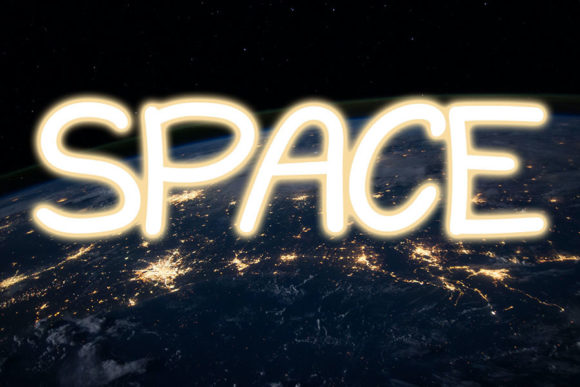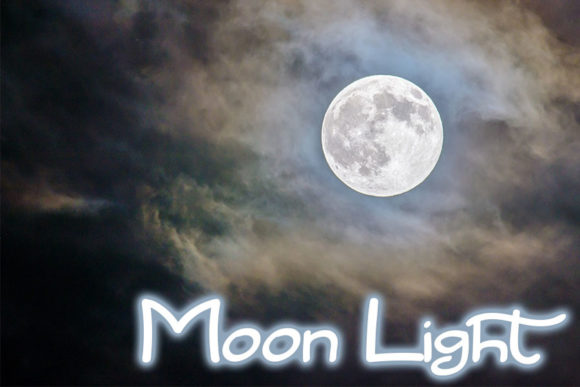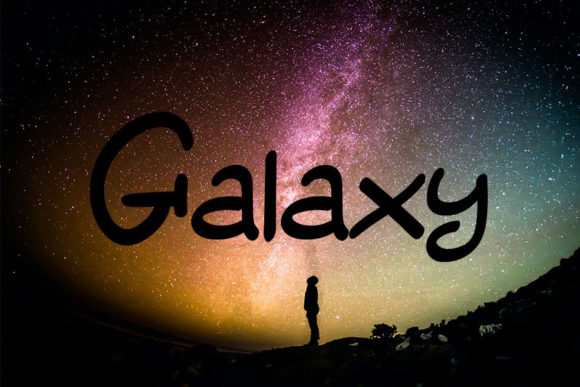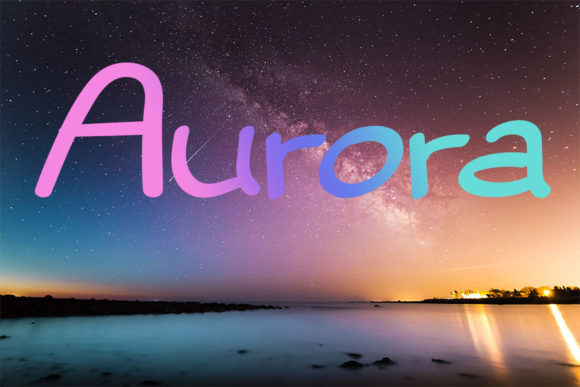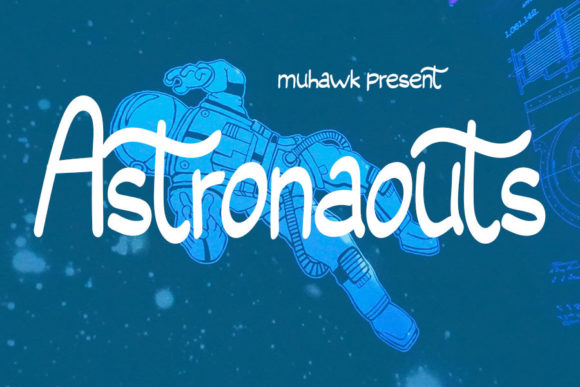
Astronaouts Font: Elevate Your Designs with a Whimsical Script Font
Are you tired of using the same old fonts in your designs? Look no further than Astronaouts, a whimsical script font that’s sure to add a touch of personality to any project. With its relaxed theme and lovely style, Astronaouts is the perfect addition to any font library. In this article, we’ll take a closer look at what makes Astronaouts so special and why it’s a must-have for designers and crafters.
What is Astronaouts Font?
Astronaouts is a script font that’s designed to evoke a sense of playfulness and whimsy. Its relaxed theme makes it perfect for projects that require a friendly and approachable tone. Whether you’re working on a logo, a poster, or a website, Astronaouts is sure to add a touch of personality to your design.
Key Features of Astronaouts Font
- Whimsical style: Astronaouts has a unique and playful style that’s sure to stand out in any design.
- Relaxed theme: The font’s relaxed theme makes it perfect for projects that require a friendly and approachable tone.
- Versatile: Astronaouts can be used for a wide range of projects, from logos and posters to websites and social media graphics.
- Easily readable: Despite its playful style, Astronaouts is easy to read, making it perfect for body text and headings.
Why You Need Astronaouts in Your Font Library
Astronaouts is more than just a font – it’s an asset to your design toolkit. Here are just a few reasons why you need Astronaouts in your font library:
- Adds personality to your designs: Astronaouts is a unique and playful font that’s sure to add a touch of personality to any design.
- Elevates any project: Whether you’re working on a logo, a poster, or a website, Astronaouts is sure to elevate your project and make it stand out.
- Versatile: Astronaouts can be used for a wide range of projects, making it a valuable addition to any font library.
How to Use Astronaouts Font
Using Astronaouts is easy. Here are just a few tips to get you started:
- Pair it with a bold font: Pair Astronaouts with a bold font for a striking contrast that’s sure to make your design stand out.
- Use it for headings: Astronaouts is perfect for headings and titles, where its playful style can really shine.
- Experiment with colors: Astronaouts looks great in a wide range of colors, so don’t be afraid to experiment and find the perfect hue for your design.
In conclusion, Astronaouts is a whimsical script font that’s sure to add a touch of personality to any design. With its relaxed theme and lovely style, Astronaouts is the perfect addition to any font library. Whether you’re a designer, a crafter, or just someone who loves to create, Astronaouts is a must-have font that’s sure to elevate any project. So why wait? Download Astronaouts today and start creating with this amazing font!